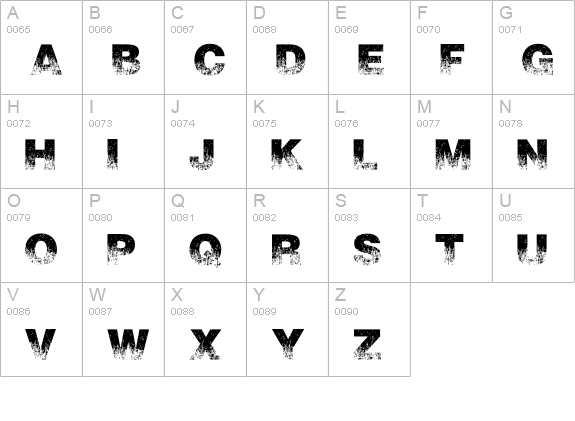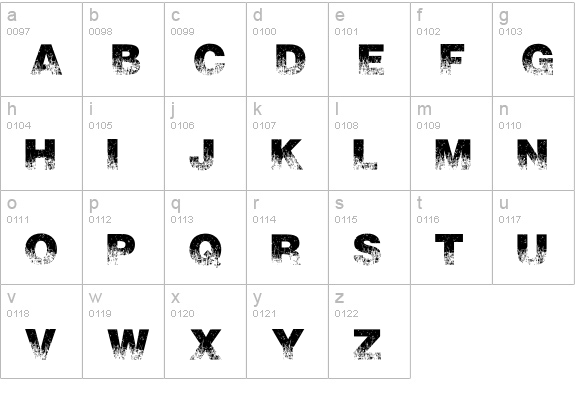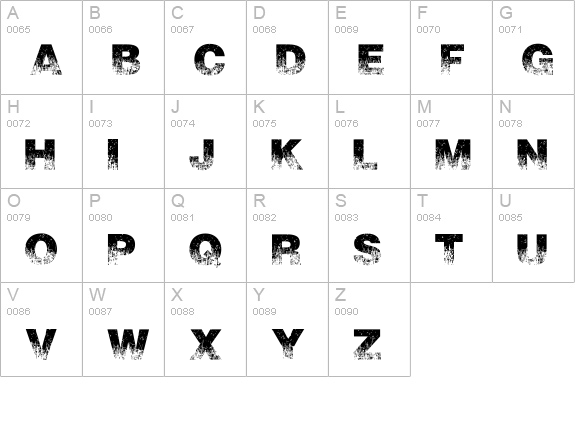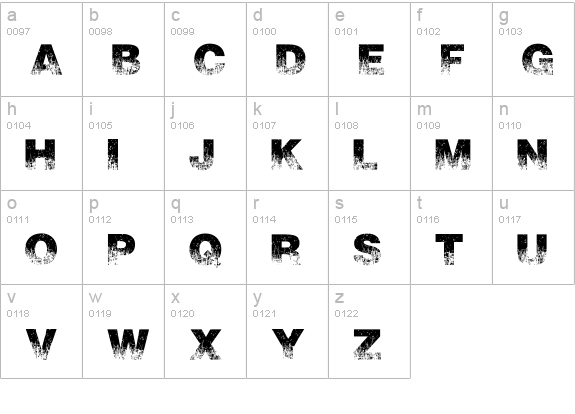
Scorched Earth Font Details
Scorched Earth Font is a visually striking typeface that exudes a sense of intensity and ruggedness. With its bold and fiery design, this font is perfect for adding a touch of dynamism to your projects. Each letter is meticulously crafted to resemble the scorch marks left behind by a blazing fire, giving it a unique and edgy appeal. What sets Scorched Earth Font apart from other fonts is not only its remarkable aesthetic, but also its accessibility. This fantastic font is available for free at FontsMarket.com, making it easily accessible to anyone in need of a powerful and eye-catching typeface. Whether you're working on a poster for a rock concert, designing a logo for a sports team, or creating a thrilling book cover, Scorched Earth Font will undoubtedly make a lasting impression. Its versatility allows it to be used in various creative projects, from digital designs to print materials. Not only does Scorched Earth Font captivate audiences with its fiery appearance, but it also ensures legibility and readability. Each letter is carefully designed to maintain clarity, even amidst the intense and captivating visual elements. Download Scorched Earth Font for free at FontsMarket.com and unleash its fiery power in your next creative endeavor. Let this font ignite your imagination and set your designs ablaze with its unique and captivating aesthetic.